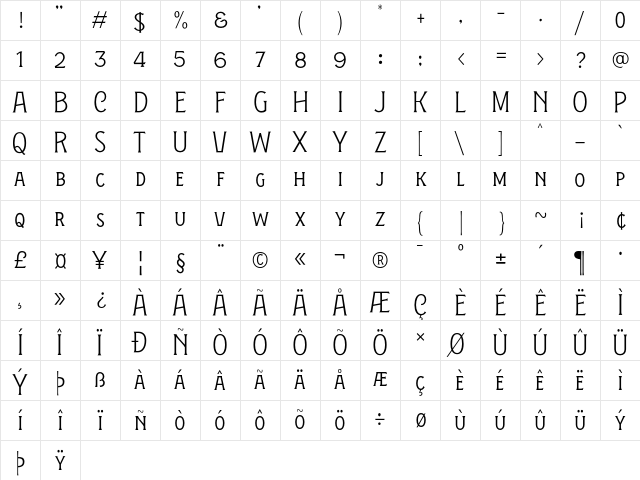
Complete Figuera Variable Light Condensed glyph index. Displaying only characters natively supported by Figuera Variable Light Condensed font.
Figuera Variable is a composed and adaptable typeface that performs quietly and consistently across a wide range of design contexts. Its slender proportions lend an understated elegance to any composition. Its narrow stance lets it pack a punch even in space-constrained designs.